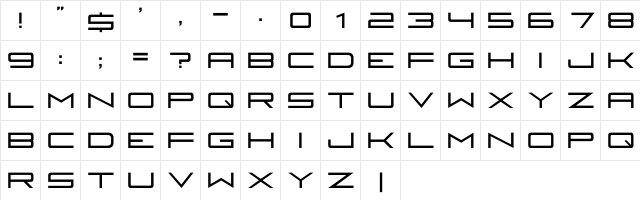
Fireye GF 3 Bold
| Foundry | Grayfire Fonts |
| Designer | John Litwinowicz |
Design Context for Fireye GF 3 Typeface
Fireye GF 3 takes a measured approach to typography — its balanced proportions and neutral character make it a reliable workhorse for both digital and print work. The heavy weight commands attention and anchors typographic hierarchies.